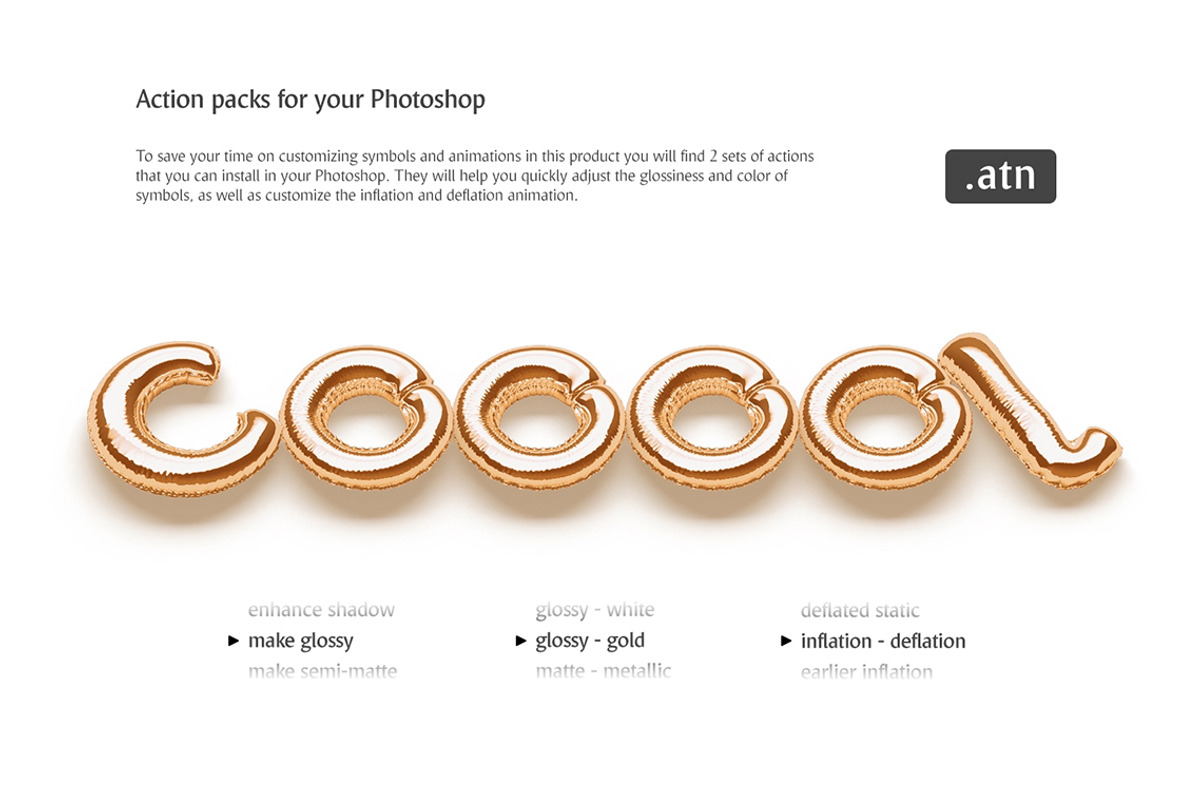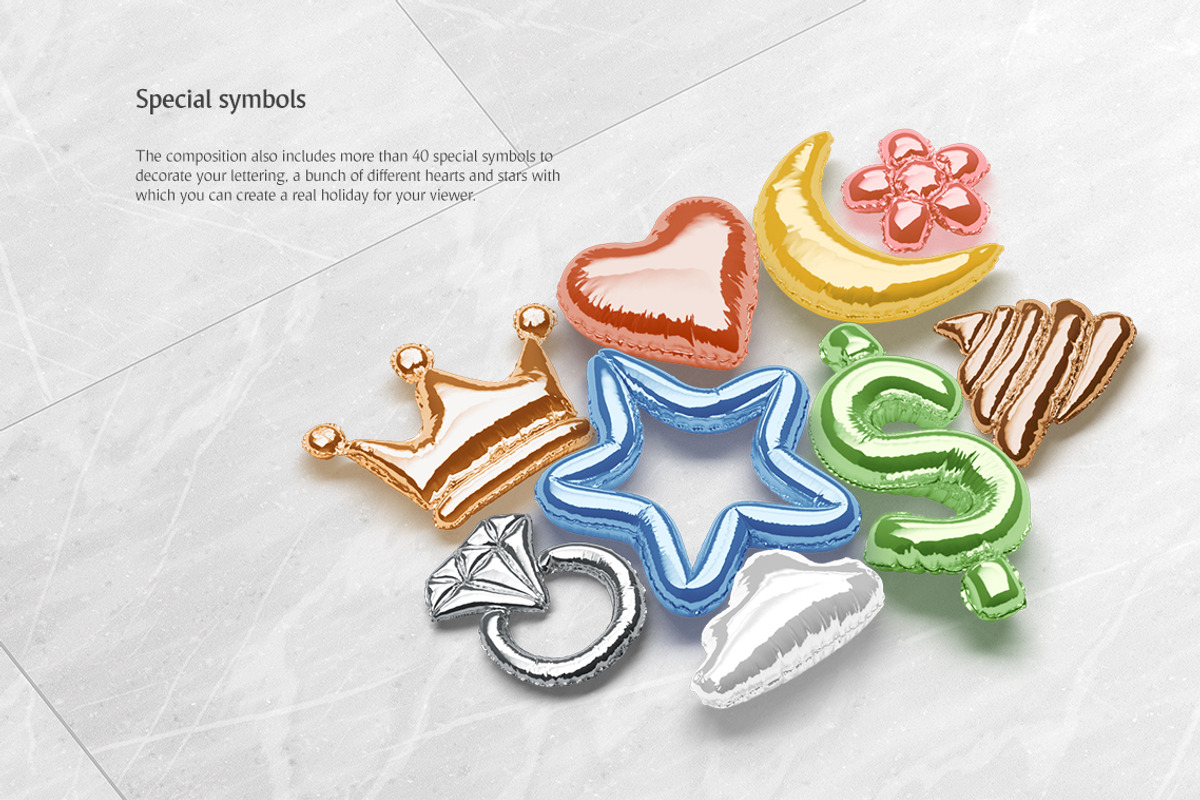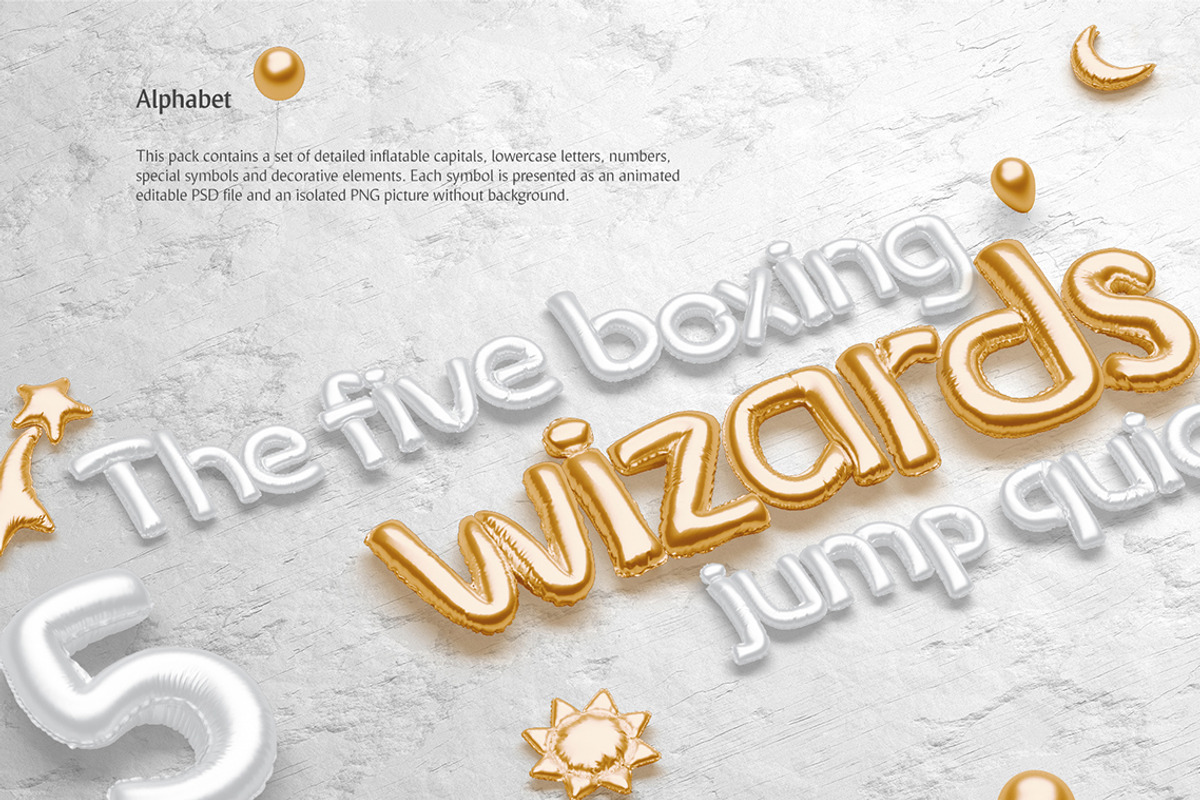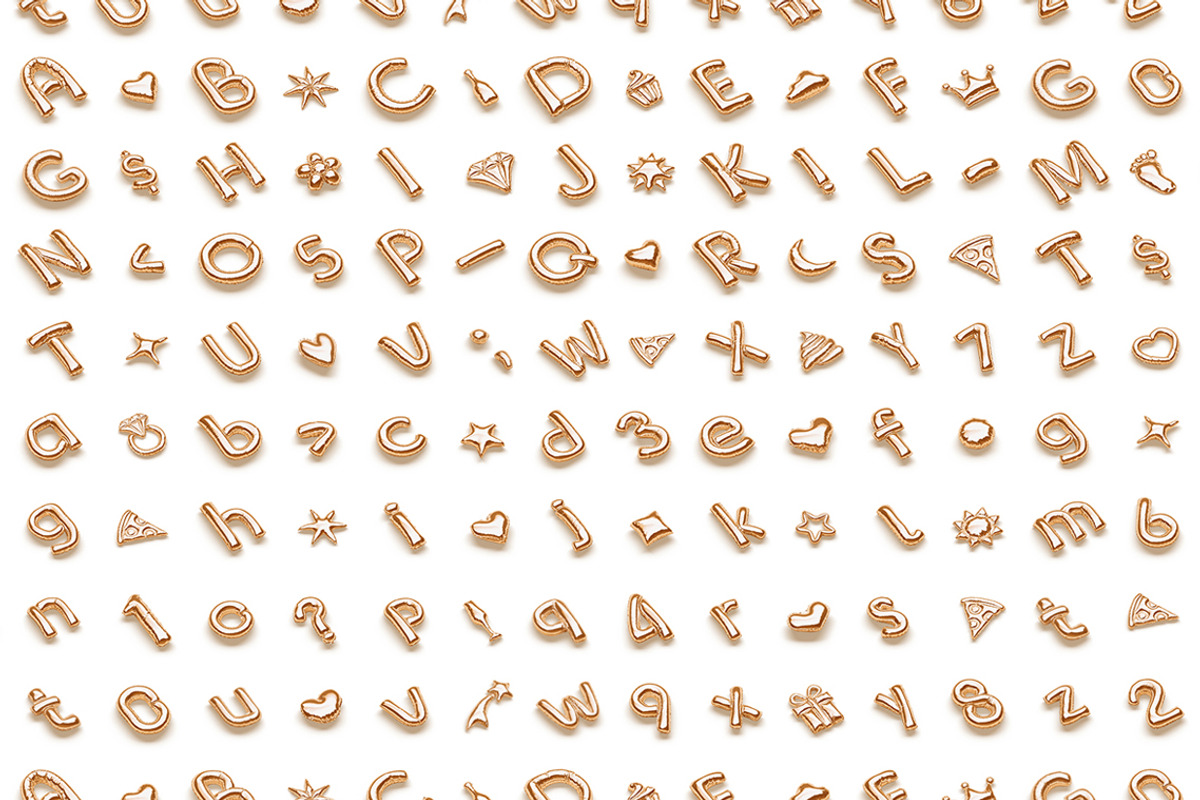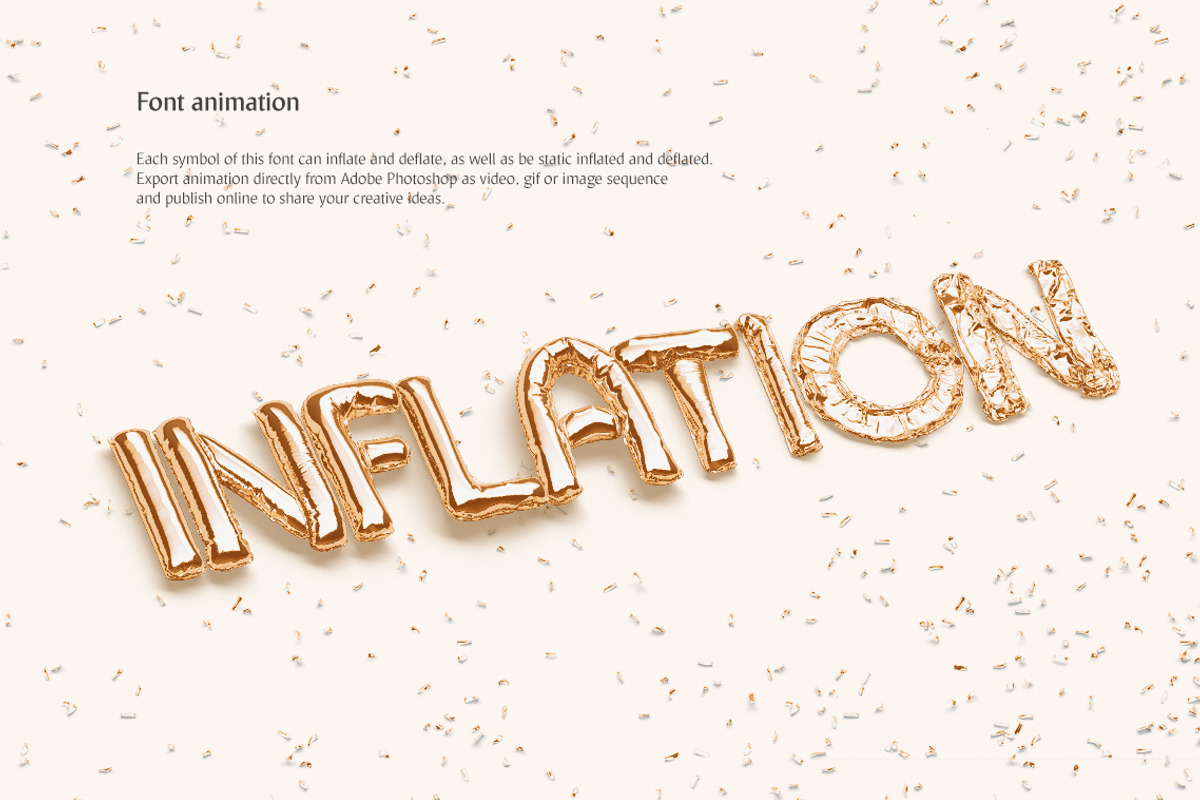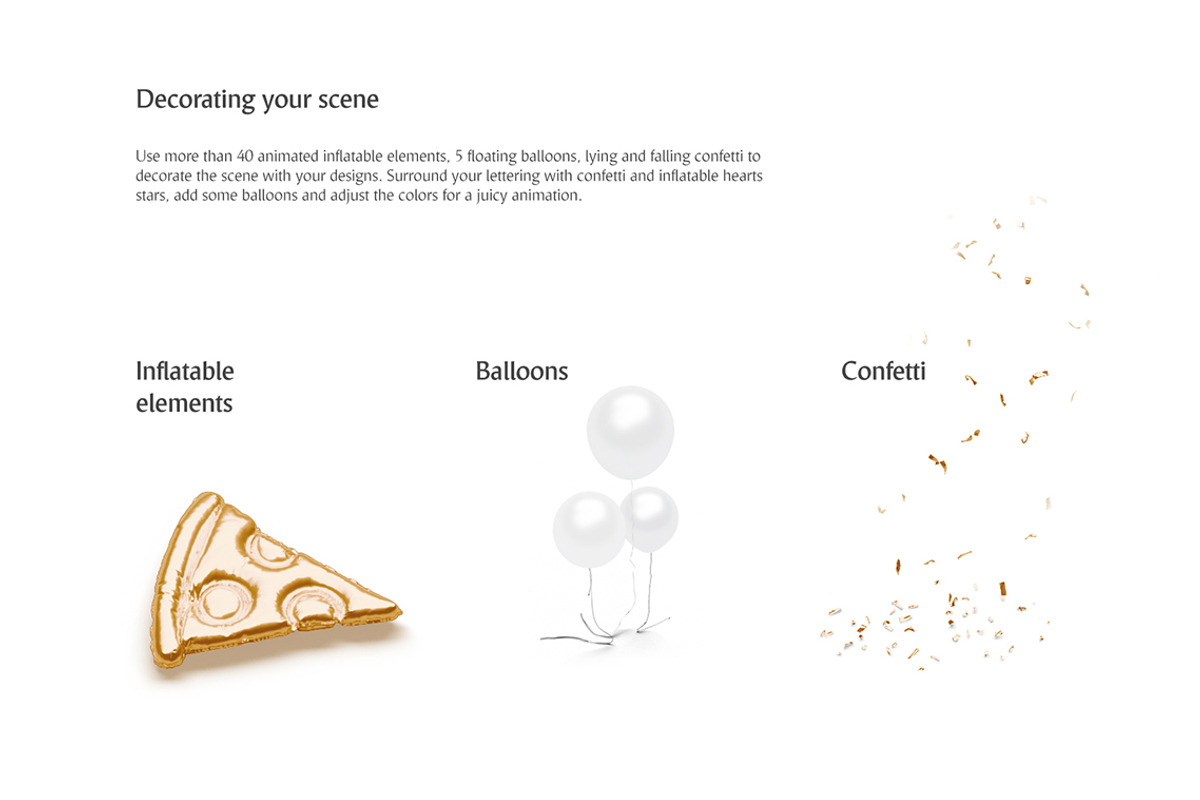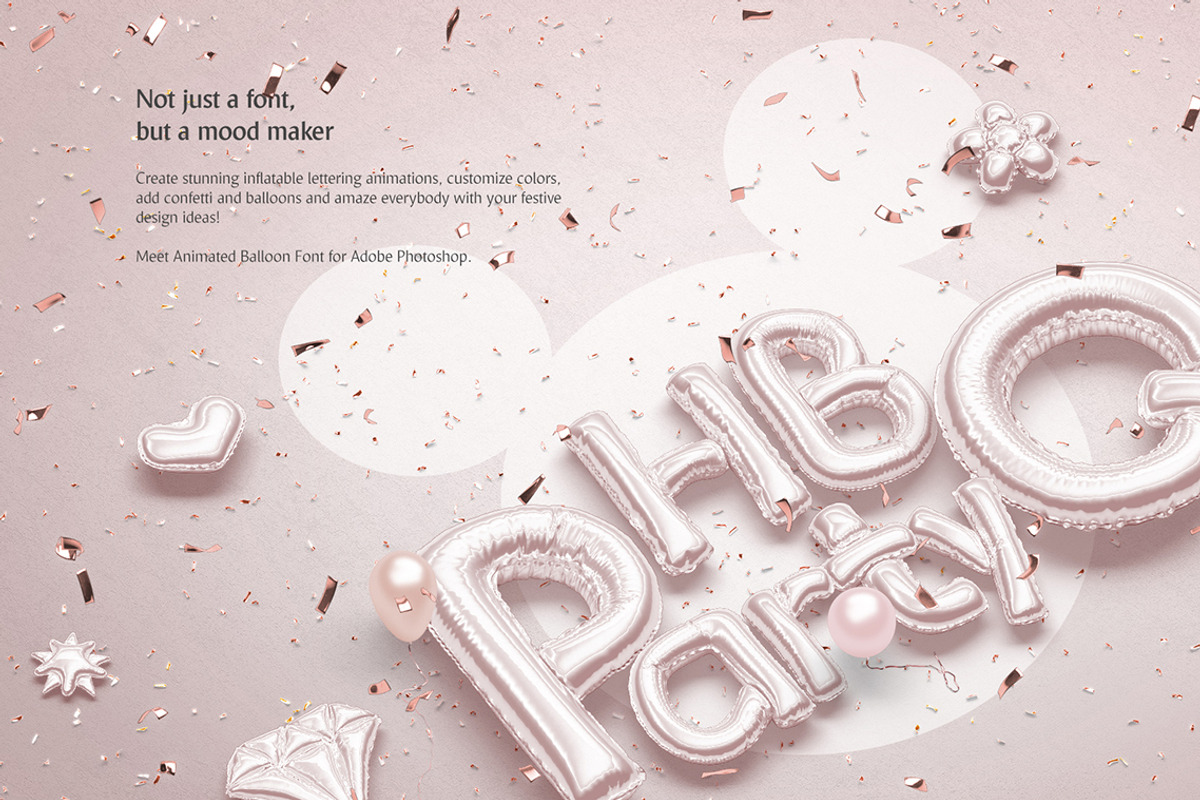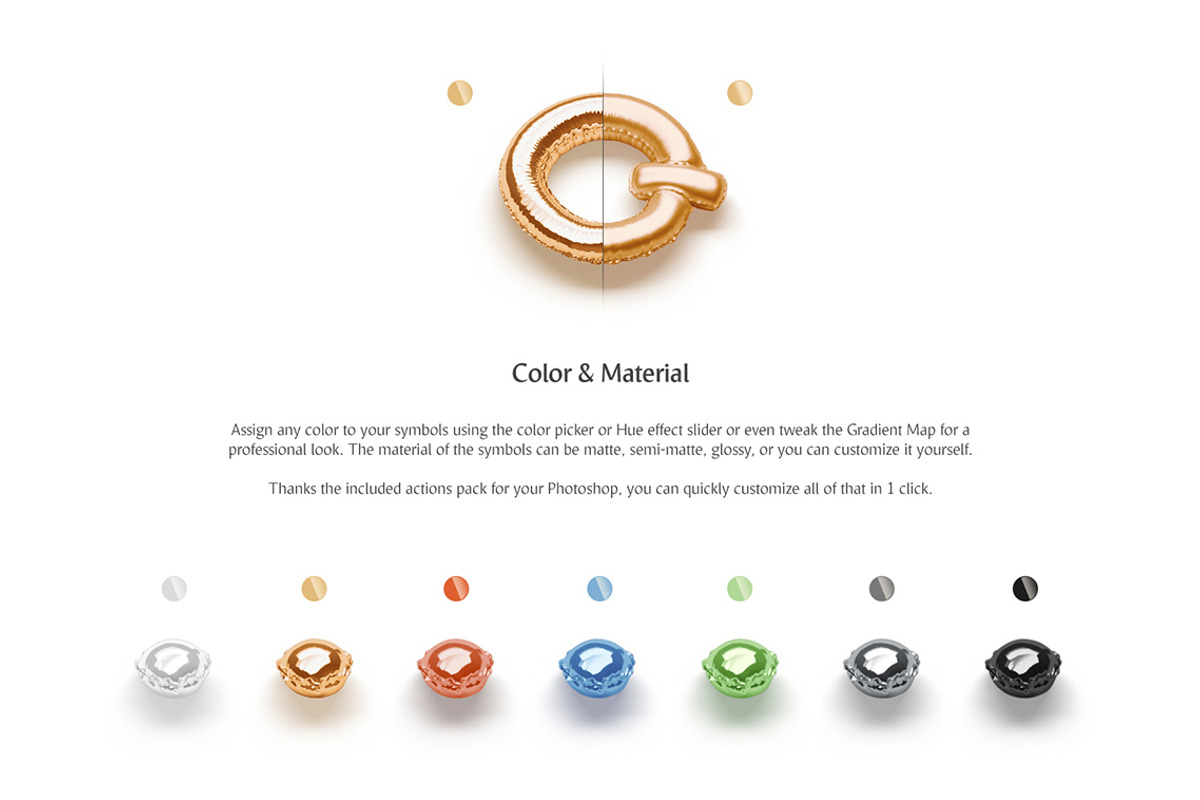
Animated Balloon Font | Side Pack
Create stunning inflatable lettering animations, customize colors, add confetti and balloons and amaze everybody with you festive design ideas!
- 26 inflatable capital letters (psd & png);
- 26 lowercase letters;
- 10 numbers;
- 42 special symbols;
- 5 floating balloons;
- confetti (lying and falling);
Editable elements:
- symbols matte & glossiness
- symbols colors;
- symbols animation;
- decorations color;
- background color and design;
Animation types:
- inflation and deflation;
- balloon floating;
- confetti falling;